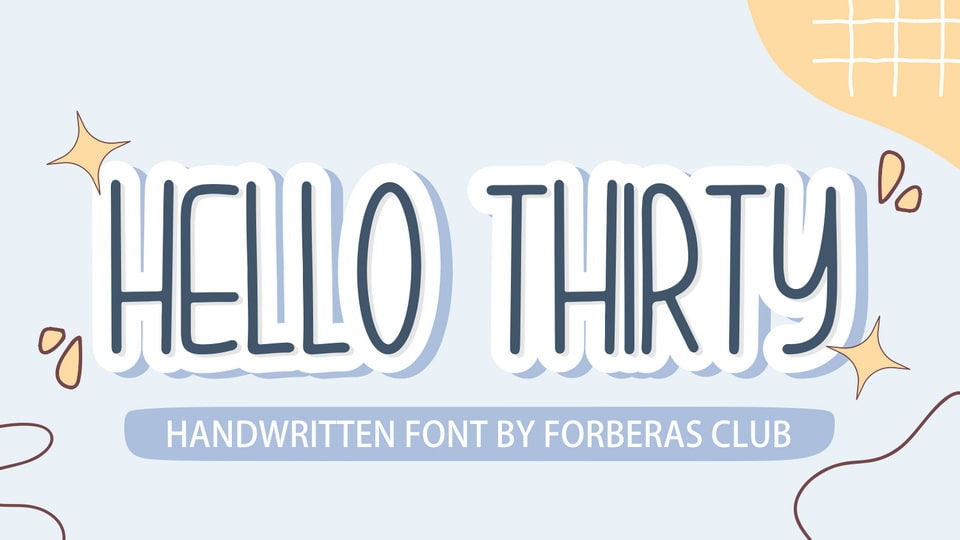
Download Hello Thirty font, a tall, cute and funny handwritten typeface. It is perfect for product packaging, branding project, magazine covers, social media, wedding, or just used to express words above the background.